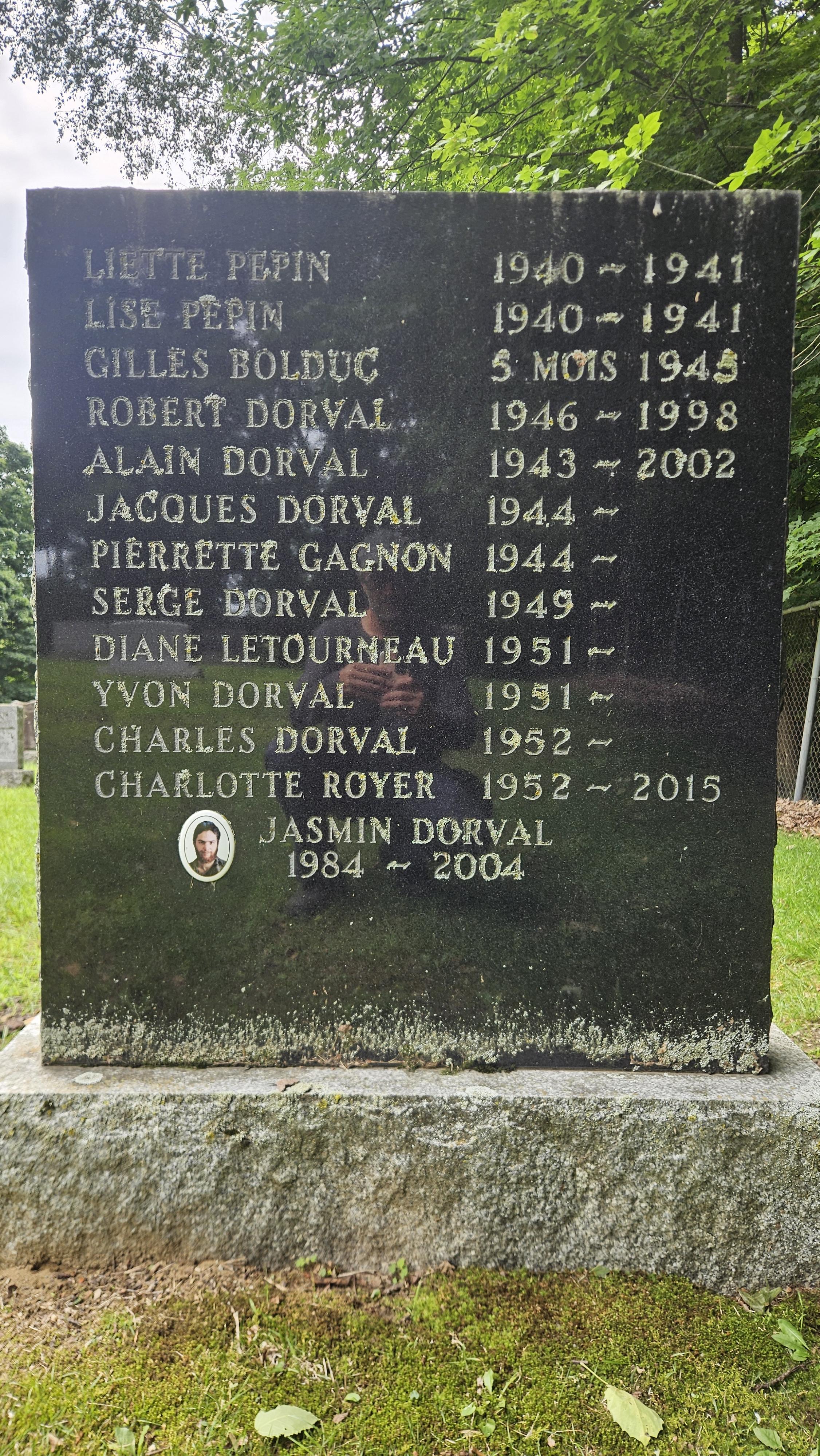
What”is this please?
Hi Marc, it is hard to tell for sure, but this appears to be the ScotchKut Raised Modified Roman alphabet. It is also possible that it is a digital font that is based on the original plastic letters, but may not be exact, as in the case of the “Nelson Roman” font, which is a version of it available in Cochran’s Monumental Designer software.
Thank you very much, these letters are wider than the Scotchcut letters. They might well be the letters from the Cochran software.
Merci beaucoup, ces lettres sont plus larges que les scotchcut. C’est peut être bien les lettres du logiciel Cochran.